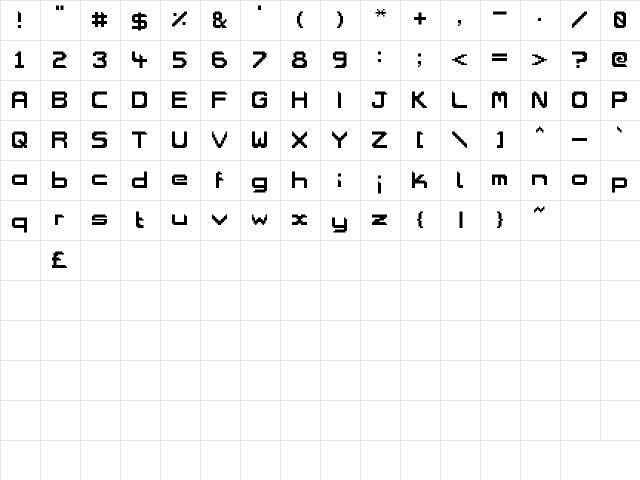
Heuristic Regular
| Foundry | C.G. Johnson |
| Designer | C.G. Johnson |
Design Context for Heuristic Typeface
Heuristic takes a measured approach to typography — its balanced proportions and neutral character make it a reliable workhorse for both digital and print work.